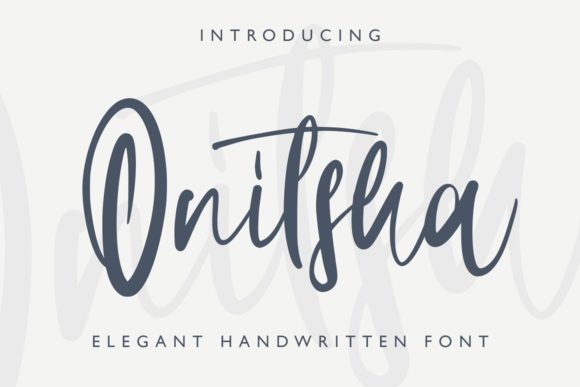
Behold Onitsha, a handwritten font that captivates with its refined elegance. Its flowing curves and delicate strokes evoke a sense of grace and charm, making it a perfect choice for a variety of projects. Step into a world of creative possibilities, where Onitsha elevates your designs with a touch of sophistication.
Onitsha's versatility knows no bounds. It shines as a centerpiece for wedding invitations, adding a touch of romance and personality to your special day. Its elegant script graces thank you cards, expressing gratitude with a heartfelt flair. For businesses seeking a distinctive edge, Onitsha crafts captivating logos that exude professionalism and creativity.
Unleash your creativity and explore Onitsha's nuances. Design eye-catching posters and flyers that draw attention with their impeccable style. Craft social media posts that resonate with your audience, leaving a lasting impression. Whether crafting digital content or creating physical products, Onitsha adds a touch of allure that sets your work apart.
Onitsha is not just a font; it's an experience. Its timeless beauty transcends trends, ensuring that your designs remain captivating for years to come. Embrace the power of Onitsha and let your imagination run wild, transforming your ideas into masterpieces of art.